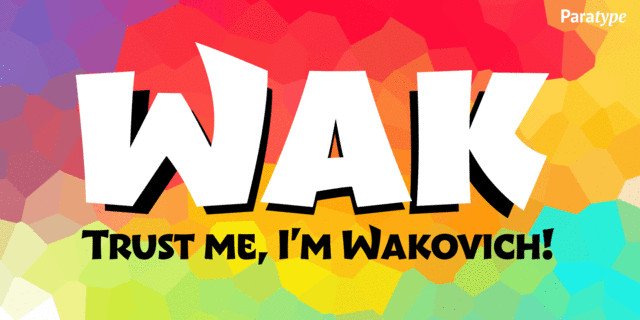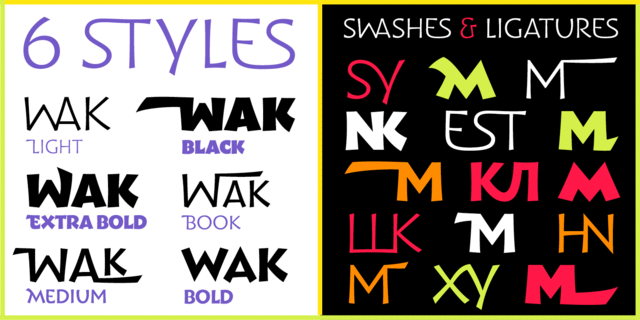
Wak (6 fonts)
About WakWak is a lively calligraphy-based sans serif. The simplicity and smoothness of its forms is combined with the sharpness and suddenness of the details. There are six weights from light to extra bold, with a variety of alternative signs, additional ligatures and initial and final forms with swashes. Lowercase letters repeat the uppercase pattern. The font is intended for short inscriptions and texts and is adapted for use on the screen. Wak was designed by Viktor Fitzner, character set expanded by Alexander Lubovenko. The font was released by ParaType in 2018.